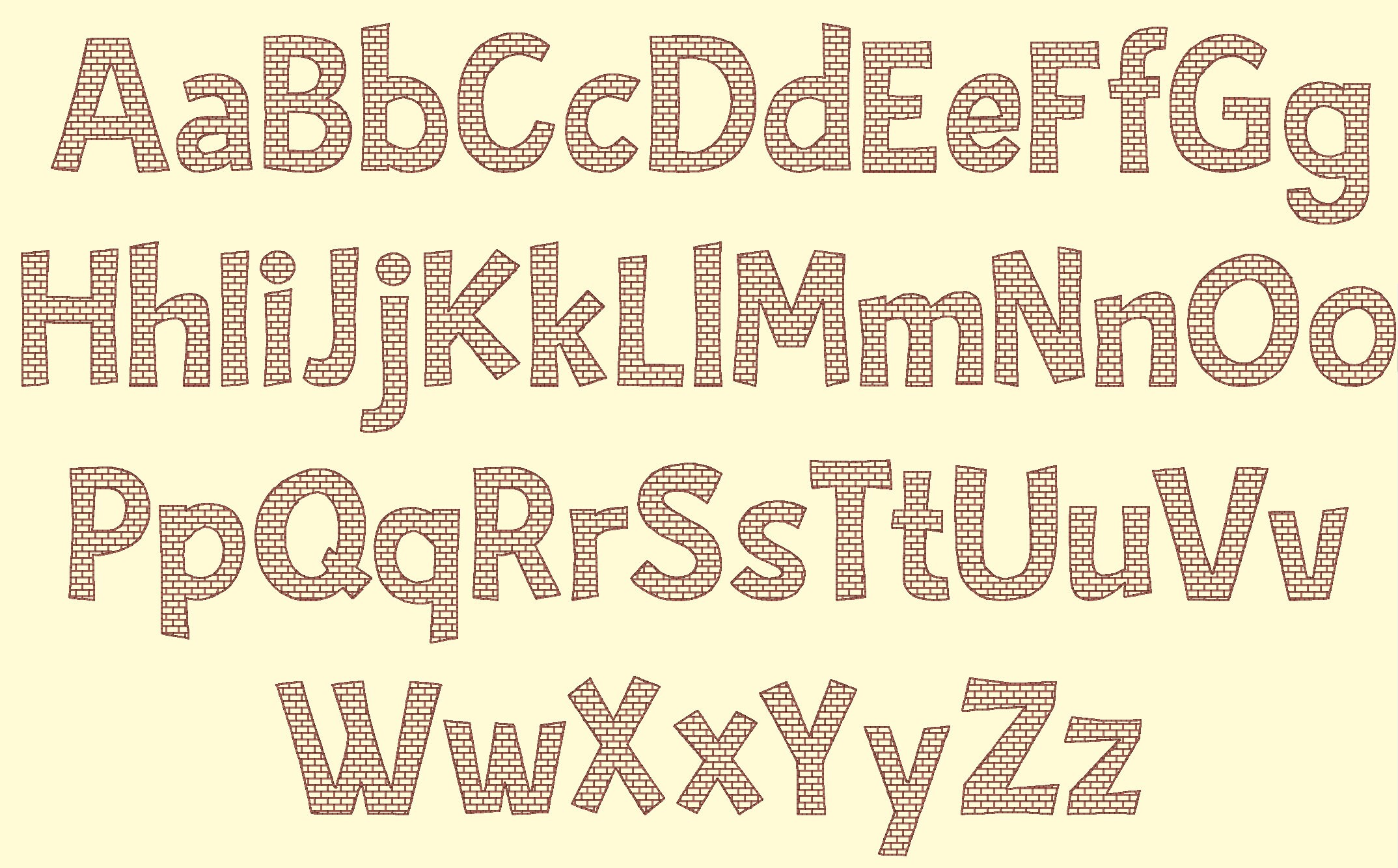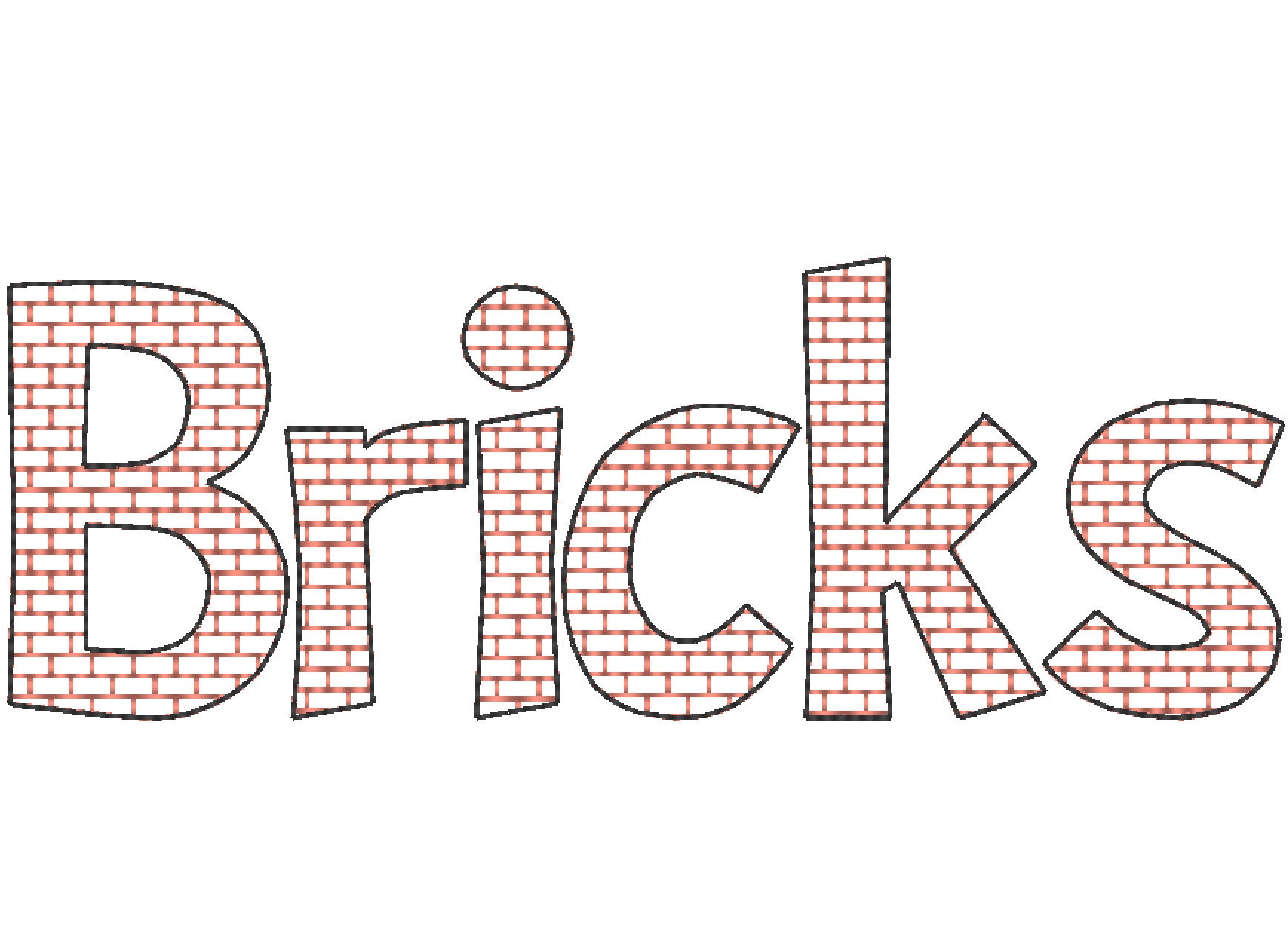
Bricks Font light sketch outline machine embroidery design font alphabet letters sizes 1.5, 2, 3, 4in BX included boy brick wall monogram
Bricks pattern is a part of the embroidery. This is a quick stitch design, looks like lace, the background fabric looks through. Stunning effect.